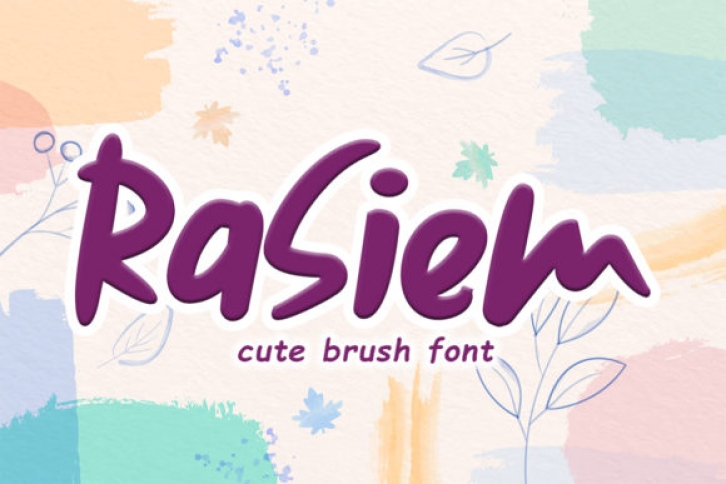
Rasiem is a cute and quirky handwritten font. Fall in love with its incredibly versatile style and use it to create gorgeous wedding invitations, beautiful stationary art, eye-catching social media posts, and much more!